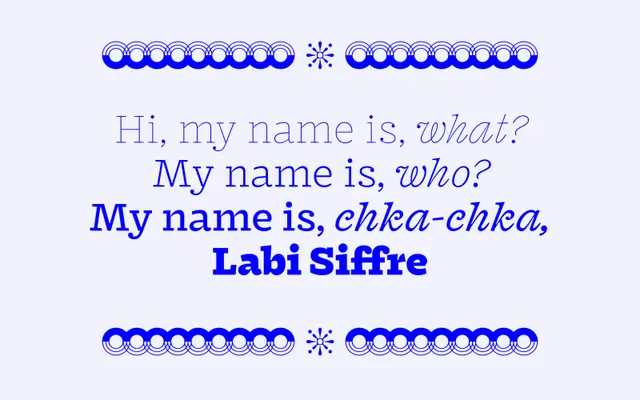
A text-display hybrid slab serif by Lucas Descroix, offered in 16 styles across eight weights with spirited italics and a generous set of OpenType features.
Designed by French type and graphic designer Lucas Descroix, Fragen bridges text and display use through a slab construction that balances lively detail against typographic stability. The family's 16 styles span Thin to Black with matching italics, and the character set of 755 glyphs includes proportional oldstyle figures, small caps, discretionary ligatures, alternate letterforms and decorative patterns. Broad Latin language support covers over 80 languages, from Vietnamese to Zulu.
The foundry describes Fragen as a text-display hybrid with a strong slab flavour, placing it squarely in the slab serif category. The spirited italics and mix of text and display utility suggest a contemporary humanist slab approach.